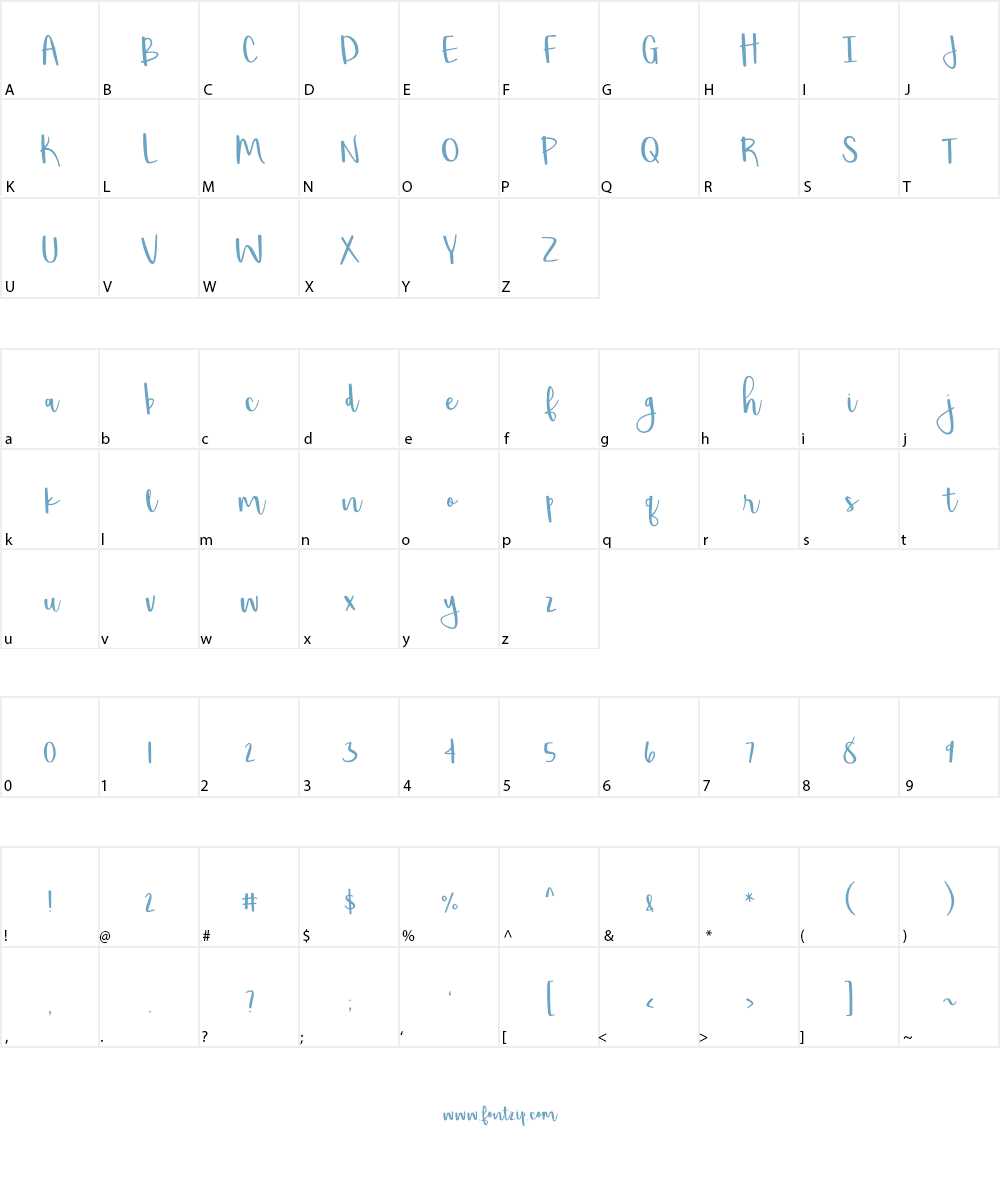
Named for one of my favorite Critical Role characters, Shorthalt is an charismatic script with contextual alternates. It has 360 characters, including lots of accented letters.